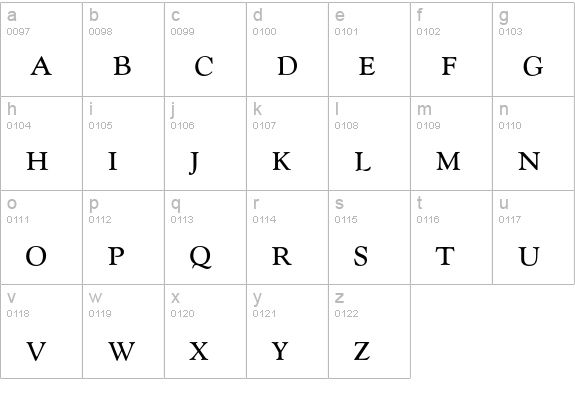
Goudy Old Style Small Caps & Old Style Figures Font Details
Goudy Old Style Small Caps & Old Style Figures is a timeless and elegant font that exudes sophistication and charm. With its classic design and refined details, this font is perfect for adding a touch of elegance to any project. The small caps and old style figures add a unique and vintage flair to your designs. The best part is that this beautiful font is available for free download at FontsMarket.com. Whether you're working on a professional project or simply looking to elevate your personal creations, Goudy Old Style Small Caps & Old Style Figures is the perfect choice. Download it today and add a touch of timeless elegance to your designs.